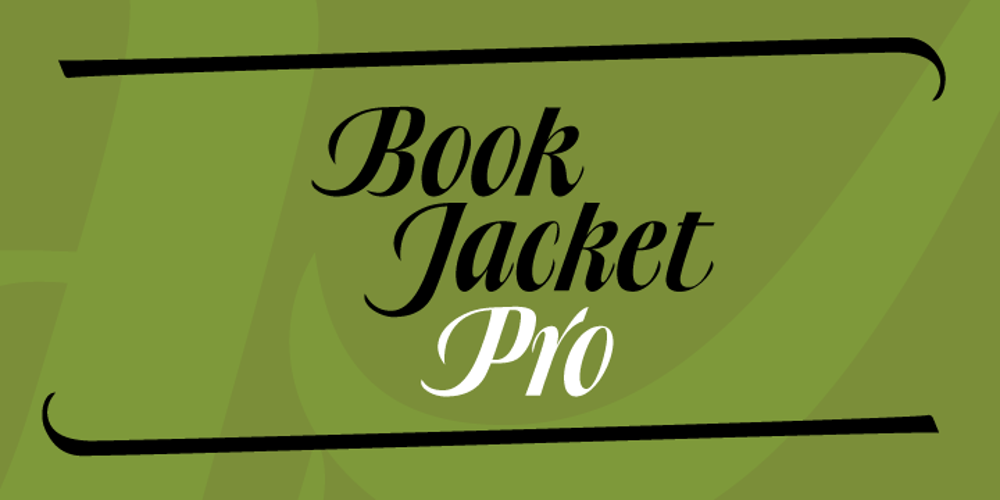
Book Jacket
Book Jacket font
Book Jacket Font Family was designed by Patrick Griffin, Ursula Suess and published by Canada Type. Book Jacket contains 4 styles and family package options. Book Jacket is arguably the most famous of all typefaces done in the Typositor era. Designed by Ursula Suess over an entire year, and published in 1972, Book Jacket became an instant success story that lasted well into the 1980s (even though it was copied by Phil Martin who published it under the name Bagatelle shortly after its release). Almost 40 years later, Ursula Suess and Canada Type consolidate their talents to bring you a revised, improved and expanded digital version of this film type classic, including small caps, additional swashes and new alternative forms. Book Jacket is available as a 4-font package in Mac PostScript and universal TTF format, or a single Pro OTF which includes features for small caps, swashes, caps to small caps, stylistic alternates, and class-based kerning.